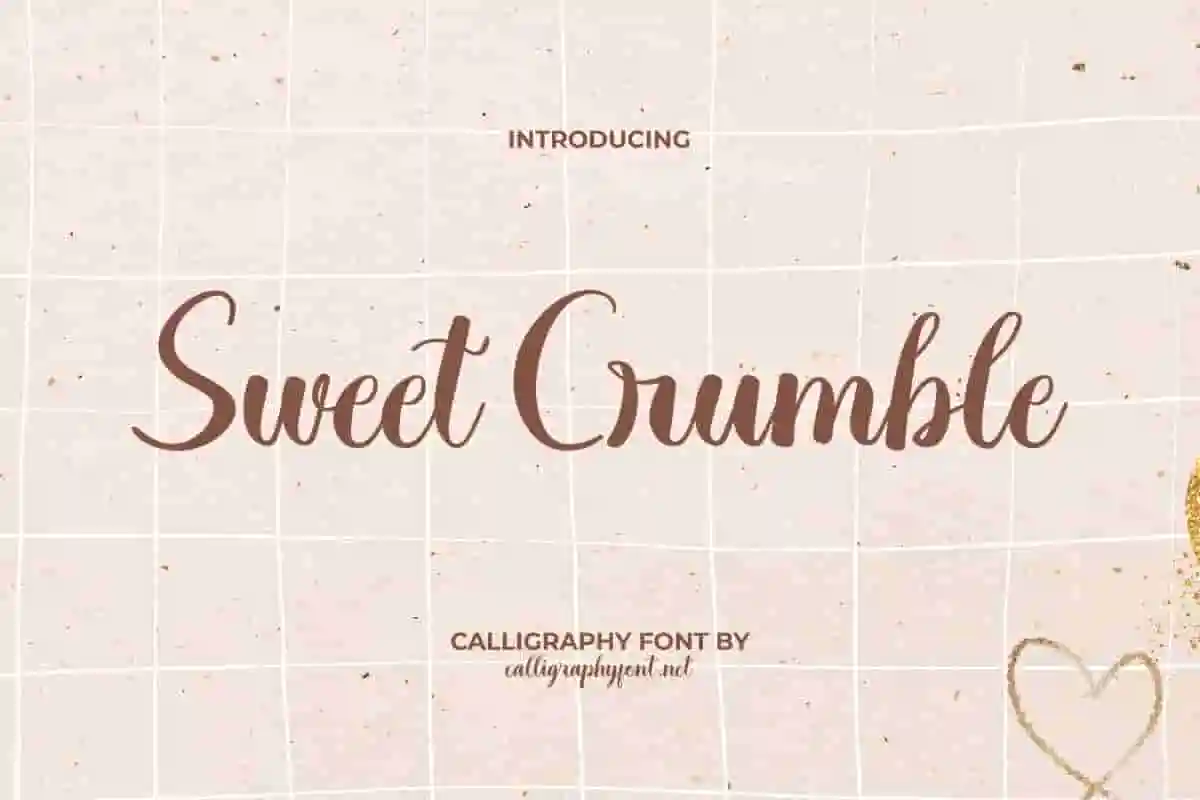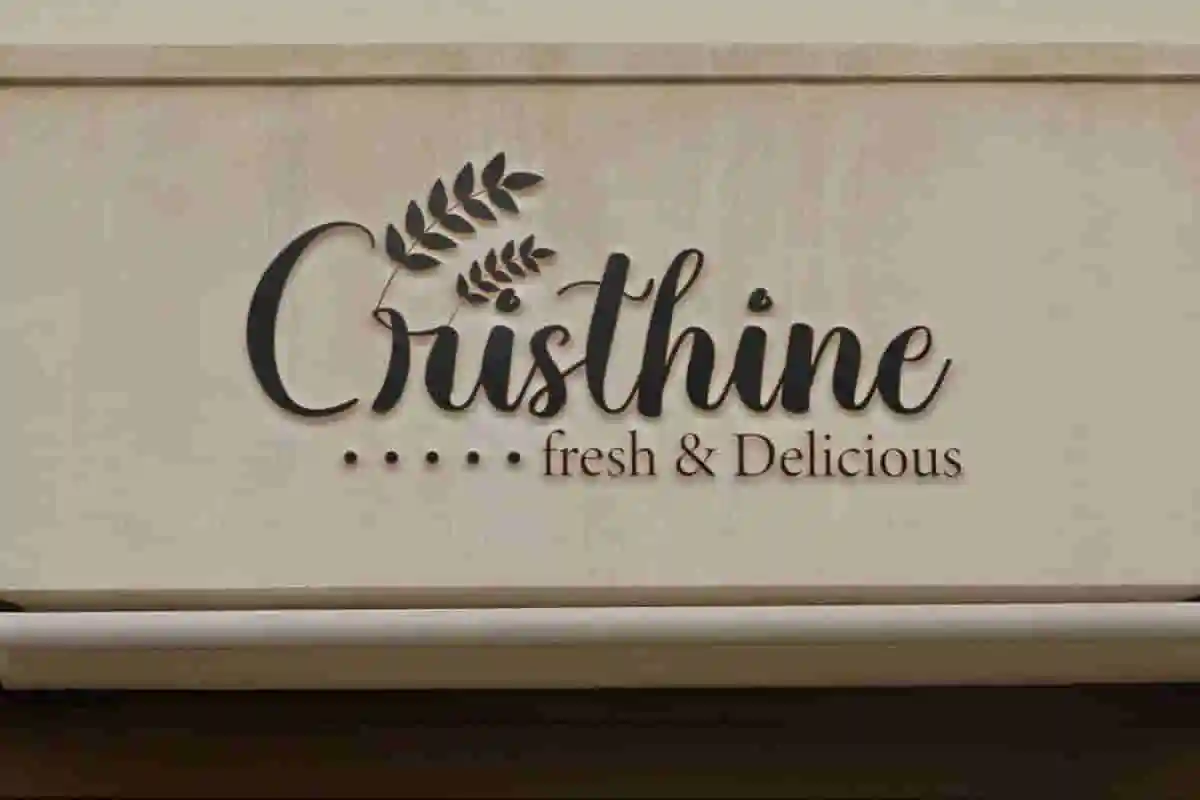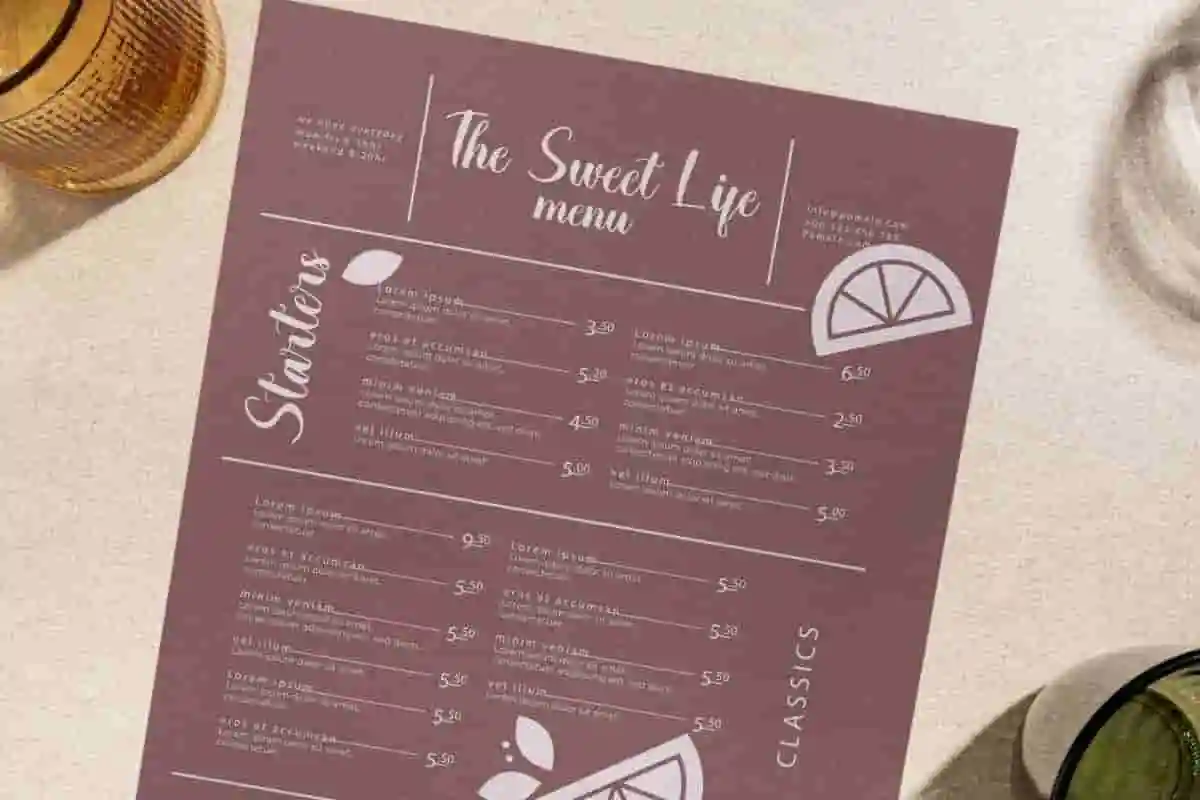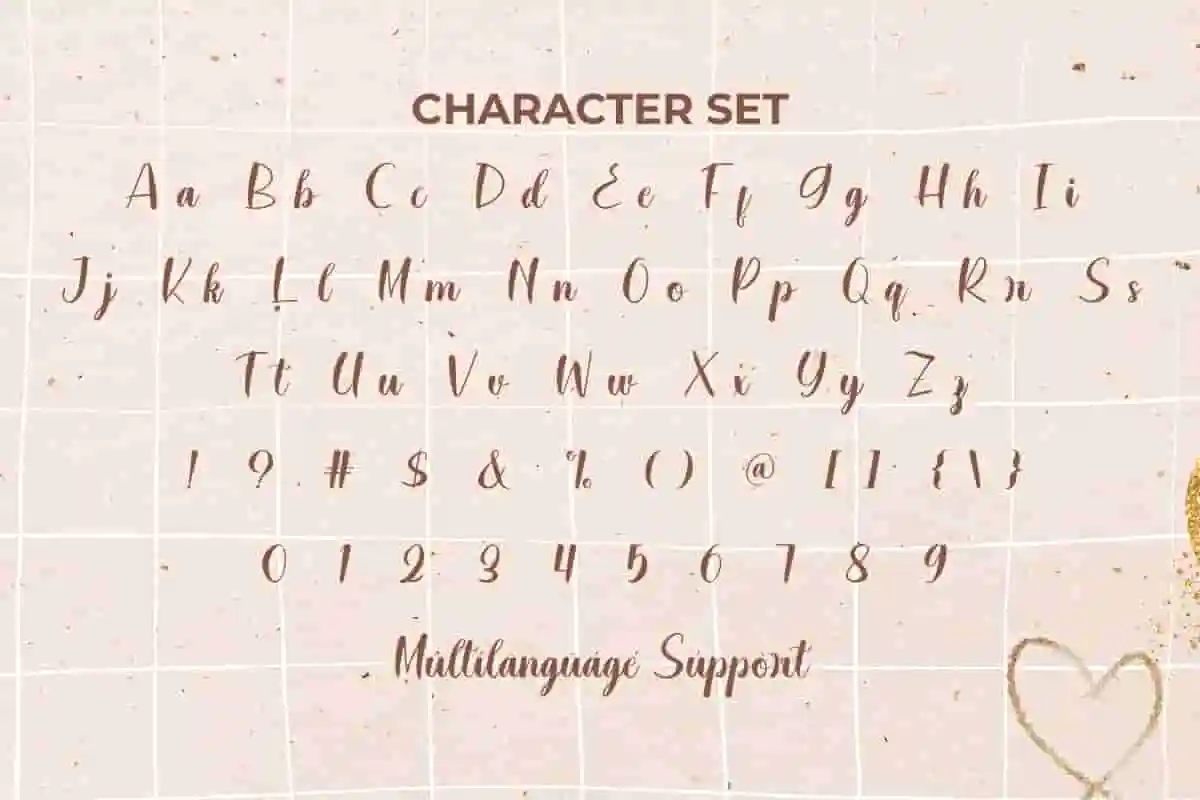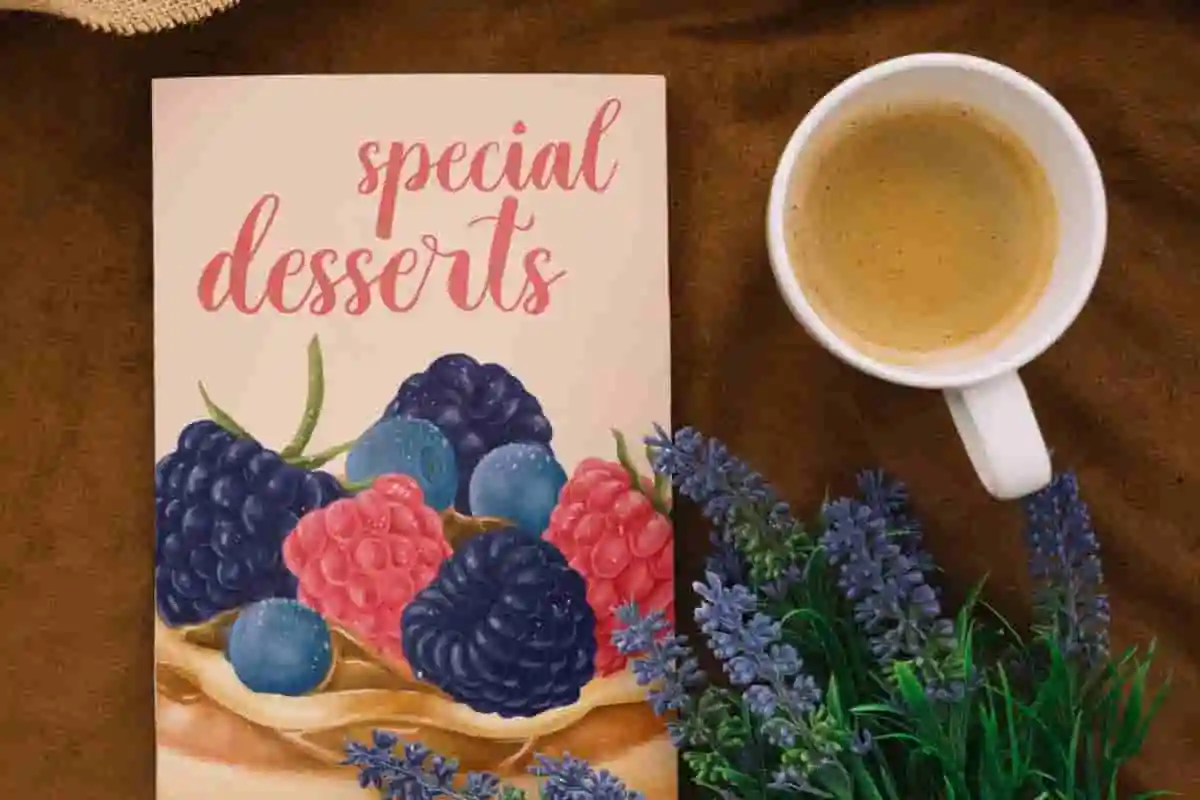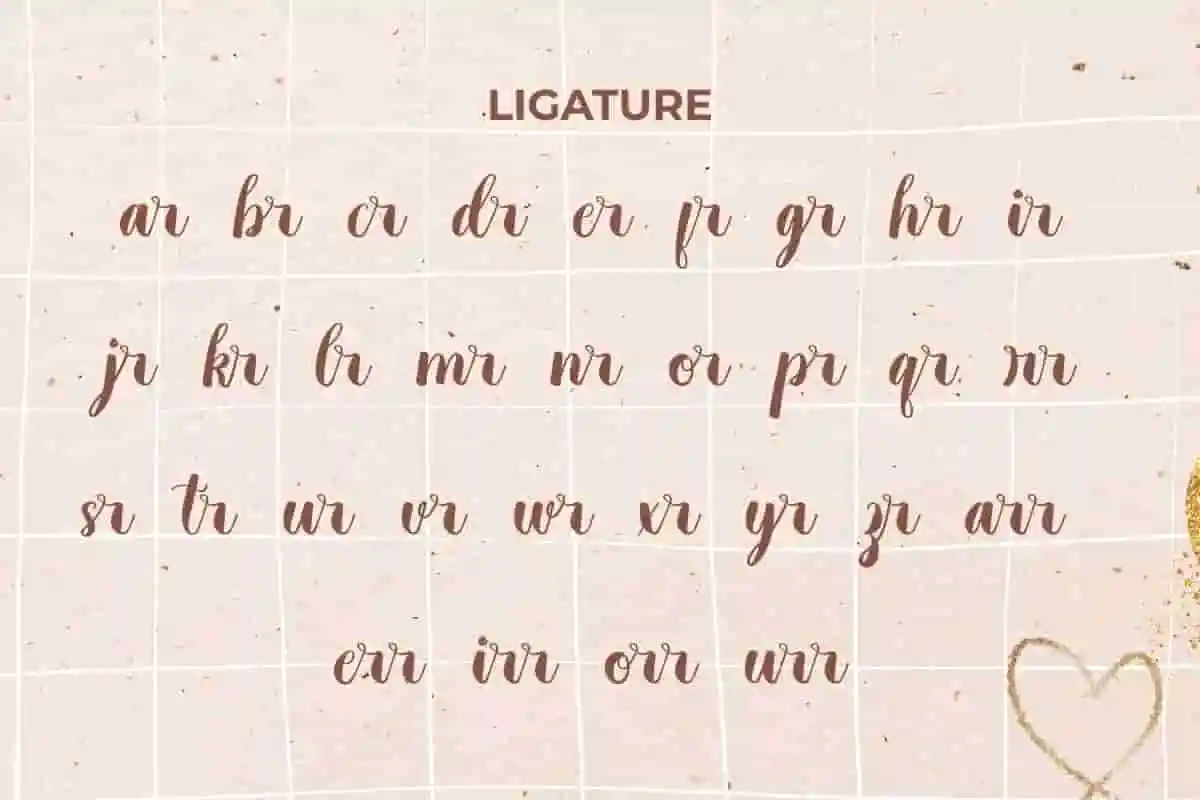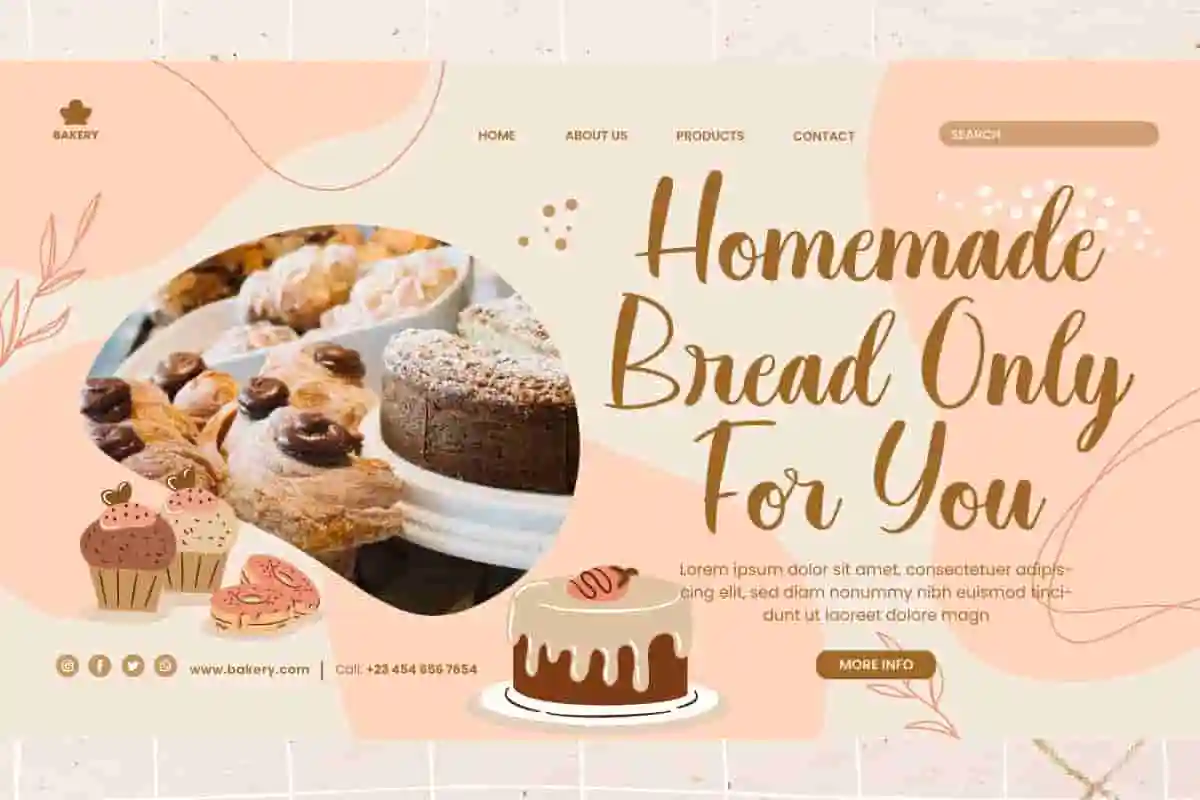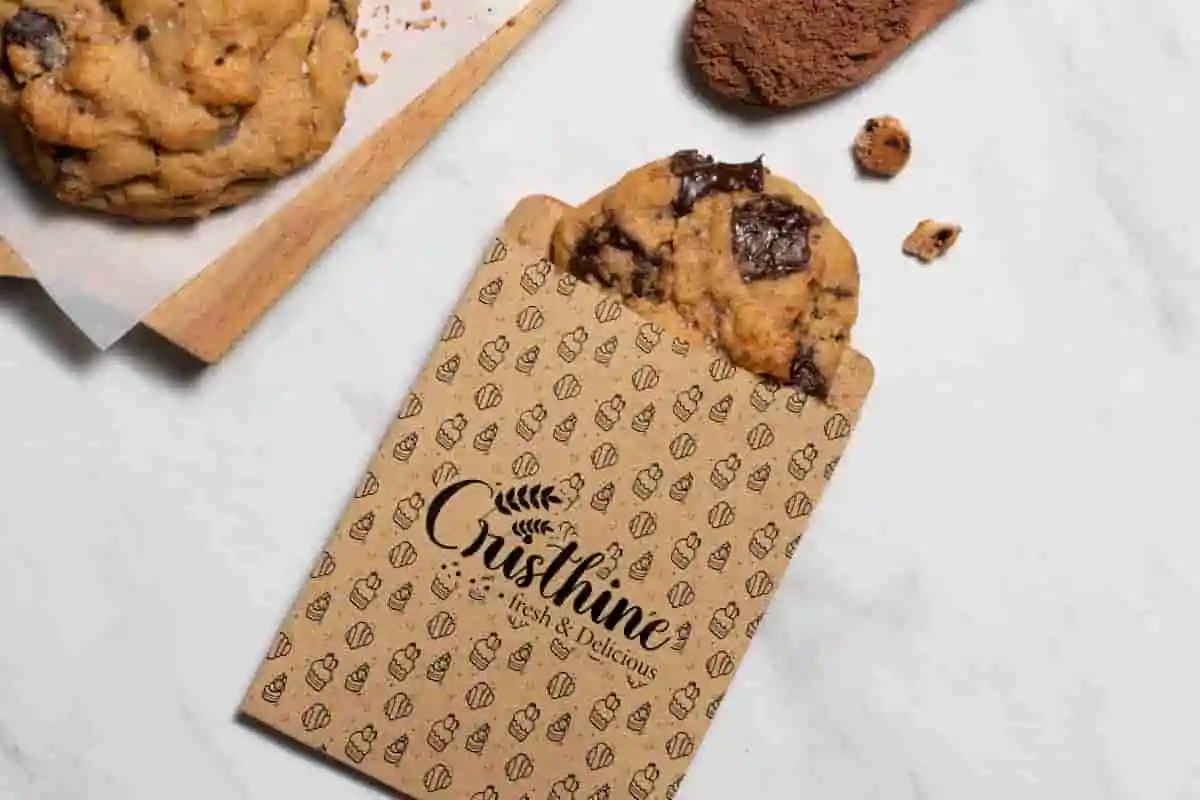
Sweet Crumble Font
Sweet Crumble Font is a sweet beautiful calligraphy font with romantic theme. It has classic and premium feel that will flow perfectly into any of your design projects, such as brand logos, print media designs, social media posts and more things.
Sweet Crumble Font is a sweet beautiful calligraphy font with romantic theme. It has classic and premium feel handcrafted script calligraphy font to add a splash of creativity to a project with the addition of beautiful ligature characters, you can create a font look that feels personal. Use Use this typeface for brochure, invitation, menu, mockup design, packaging design, quotes, signage, stationery, title, website and much more.
Looking for a font that is fun, fresh, and full of personality? Meet Sweet Crumble Calligraphy Font, a delightful display typeface designed to bring joy and creativity to your projects. With its bold yet whimsical strokes, Sweet Crumble is perfect for anyone who wants to make their designs stand out with a cheerful and unique vibe.
Whether you’re working on branding, product packaging, social media graphics, children’s books, posters, or invitations, this font is a versatile choice that adds a sense of warmth and friendliness. Its playful curves and eye-catching style make it ideal for logos, t-shirt designs, and creative merchandise. Sweet Crumble is not just a font—it’s a statement of fun and positivity.
The handcrafted lettering style ensures that every word looks natural and engaging. Pair it with bright colors or minimalist layouts, and your design will instantly capture attention. Designers love using Sweet Crumble Calligraphy Font because it strikes the perfect balance between decorative charm and readability
Sweet Crumble Calligraphy Font is a casual script font that carries a sweet modern calligraphy feel made by hand. Can be used as main text or in combination with other types of fonts, making it easy to use both formal and non-formal. This font is great for bakery, cafeteria, event organizer, graphic design, handicraft, jewelry, pastry shop, photography, restaurant, and more.